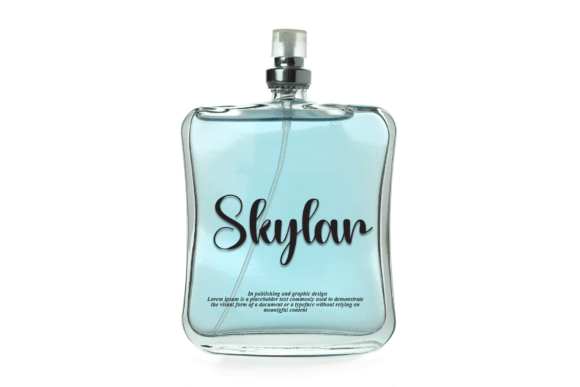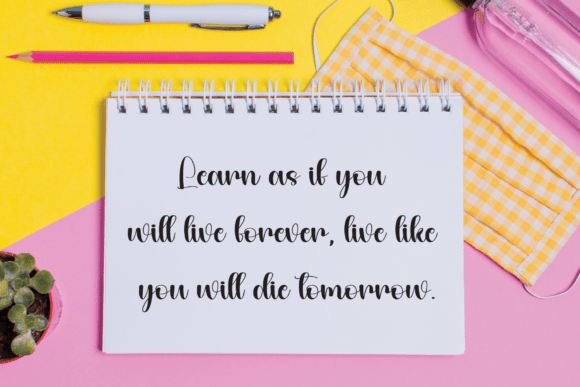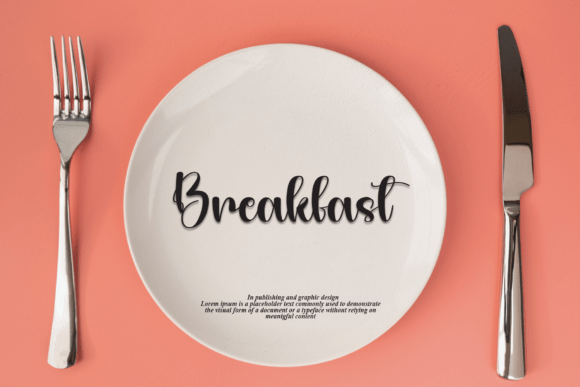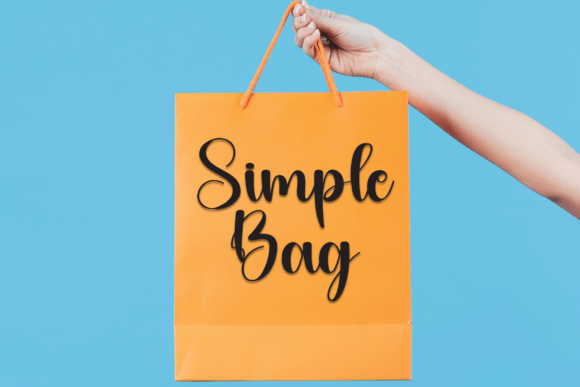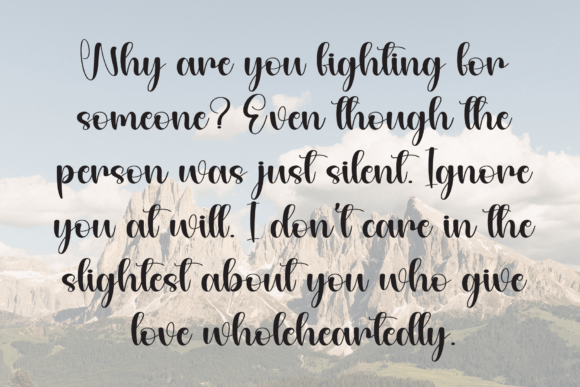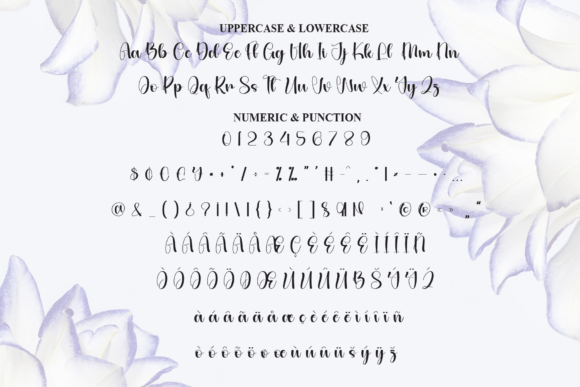
Introducing Blue Magnolia Font: The Epitome of Elegance and Romance
Are you a designer, crafty enthusiast, or someone who appreciates the finer things in life? Look no further than the exquisite Blue Magnolia font. This stunning handwritten font is designed to evoke a sense of romance and sophistication, making it perfect for a variety of creative projects. In this article, we’ll delve into the world of Blue Magnolia, exploring its unique characteristics, uses, and benefits.
The Essence of Blue Magnolia Font
Blue Magnolia is a graceful handwritten font that exudes a romantic flair. Its refined loops and soft, inviting rhythm create a sense of fluidity and movement, making it a joy to behold. The font’s elegant design makes it an excellent choice for projects that require a touch of sophistication and whimsy. Whether you’re creating stationery, wedding materials, or chic branding, Blue Magnolia is sure to impress.
Key Features of Blue Magnolia Font
- Handwritten with love: Blue Magnolia is a carefully crafted handwritten font that showcases a high level of attention to detail.
- Refined loops: The font’s loops are smooth and refined, creating a sense of continuity and flow.
- Soft and inviting rhythm: The rhythm of Blue Magnolia is soft and inviting, making it perfect for projects that require a touch of warmth and personality.
- Romantic flair: Blue Magnolia’s romantic flair makes it an excellent choice for wedding-related projects, Valentine’s Day cards, and other romantic designs.
Perfect for Stationery, Weddings, and Chic Branding
Blue Magnolia font is incredibly versatile, making it suitable for a wide range of creative projects. Here are some ideas to get you started:
- Stationery: Create beautiful stationery, including letterheads, greeting cards, and invitations, with Blue Magnolia’s elegant design.
- Weddings: Make your wedding materials, such as invitations, programs, and place cards, truly special with Blue Magnolia’s romantic flair.
- Chic branding: Use Blue Magnolia to create sophisticated branding materials, including logos, business cards, and packaging, that exude elegance and refinement.
Benefits of Using Blue Magnolia Font
So, why choose Blue Magnolia font for your creative projects? Here are just a few benefits:
- Unique and eye-catching: Blue Magnolia’s distinctive design ensures that your projects will stand out from the crowd.
- Emotional connection: The font’s romantic flair and soft rhythm create an emotional connection with your audience, making your projects more relatable and engaging.
- Versatile: Blue Magnolia is suitable for a wide range of creative projects, from stationery to branding.
Tips for Using Blue Magnolia Font
To get the most out of Blue Magnolia font, here are some tips to keep in mind:
- Pair with complementary fonts: Combine Blue Magnolia with complementary fonts to create visual interest and hierarchy.
- Experiment with colors: Try pairing Blue Magnolia with different colors to create unique and eye-catching designs.
- Pay attention to spacing: Make sure to adjust the spacing between letters and words to ensure that your text is easy to read.
In conclusion, Blue Magnolia font is a stunning handwritten font that is sure to captivate designers, crafty enthusiasts, and anyone who appreciates the finer things in life. Its refined loops, soft rhythm, and romantic flair make it perfect for stationery, weddings, and chic branding. With its unique and eye-catching design, Blue Magnolia is sure to elevate your creative projects to new heights.